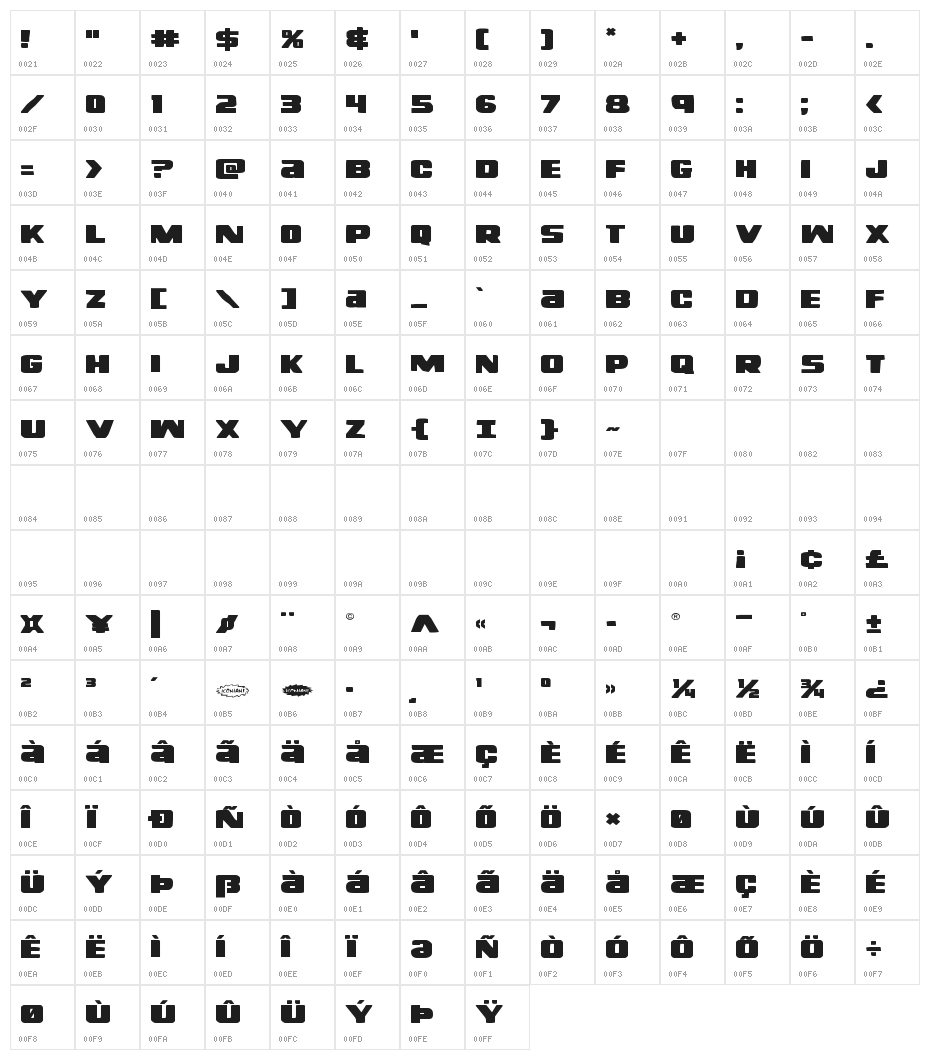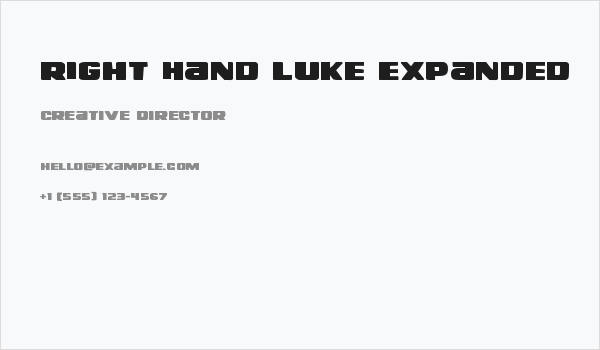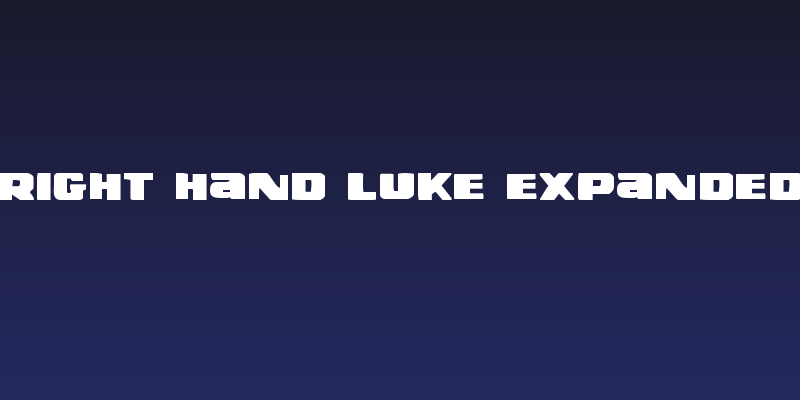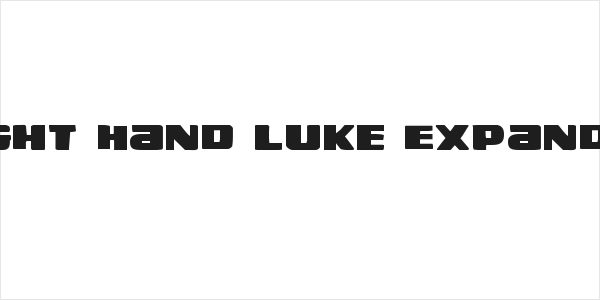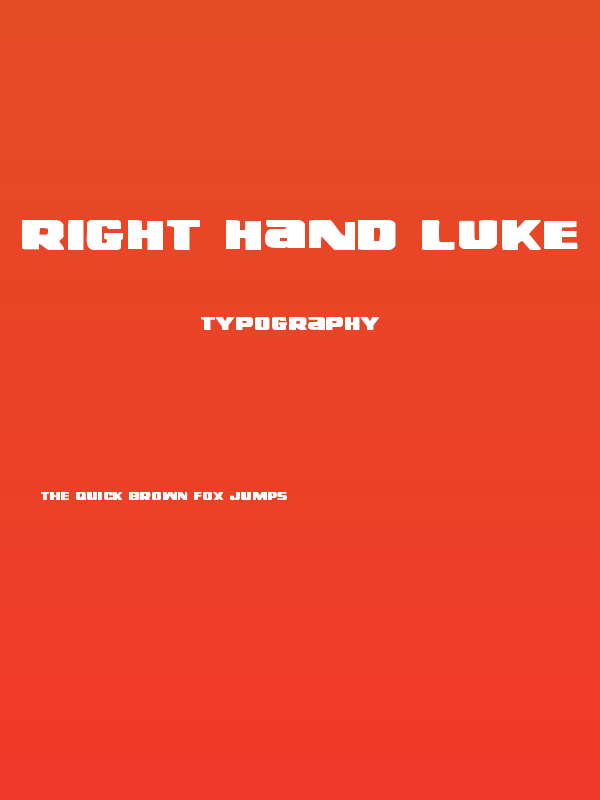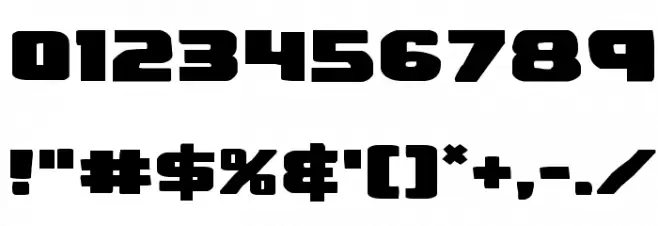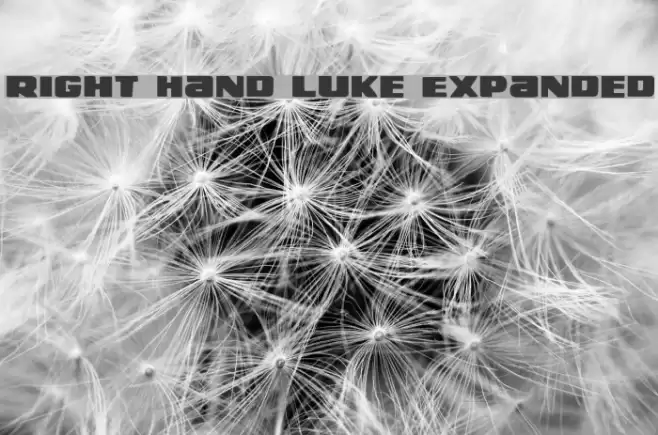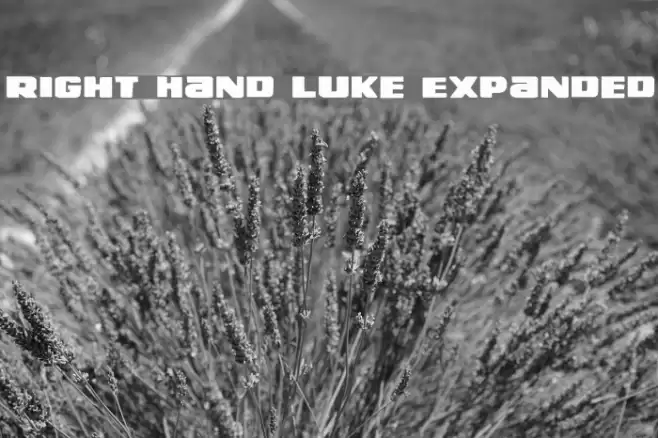
Right Hand Luke Expanded Font
Right Hand Luke Expanded Description
This font features a bold and impactful design, characterized by thick, blocky letters with a strong presence. The uppercase and lowercase letters maintain a consistent width, creating a uniform appearance. The numbers and special characters follow the same bold style, ensuring a cohesive look across all text elements. The font's expanded width gives it a commanding presence, making it ideal for attention-grabbing headlines and titles. Its geometric shapes and clean lines contribute to a modern and assertive aesthetic, suitable for various design projects that require a strong visual impact.
RIGHT-HAND-LUKE-EXPANDED UPPERCASE
RIGHT-HAND-LUKE-EXPANDED LOWERCASE
RIGHT-HAND-LUKE-EXPANDED OTHER CHARS
| Proposed Projects | Ideal for headlines, posters, branding, and any project requiring a bold statement. |